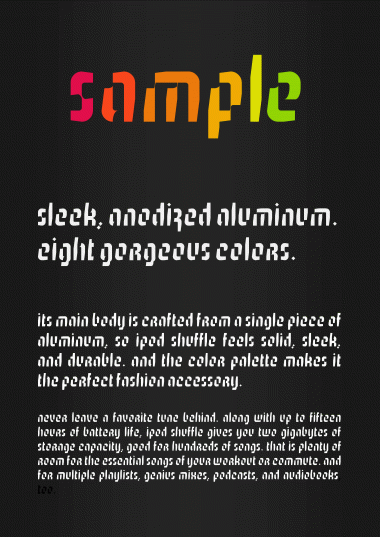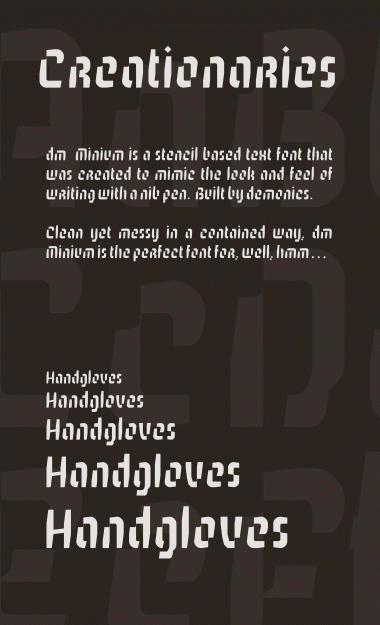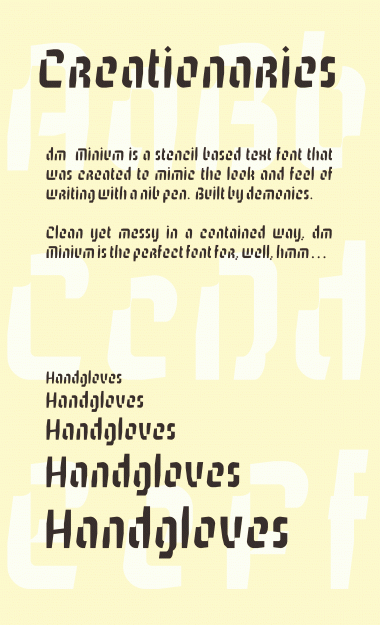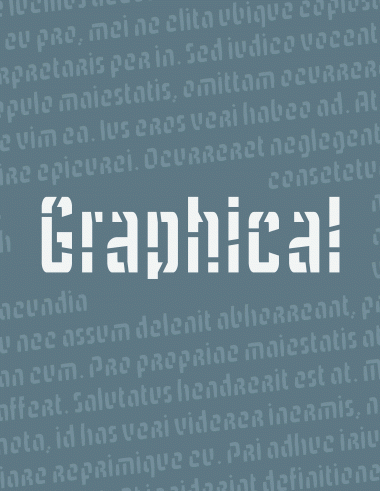
In the sample, the a/n and e/o are kinda hard to distinguish. Maybe make the a double-storey (like a flipped e). Other than that it's good! I like the italic look.
The lovely corner omissions give this both its stencil bridges and a unique square-nib look. The same “missing corner” detail reminds me quite a bit of the happy accident obvious sans – when it was still “somehow damaged” by the invisible brick bug... Anyway, this one is quite successful on its own. Well done!
@four // When i designed Minium, I thought to myself: this one better be good :-)
The UC is working its way along.